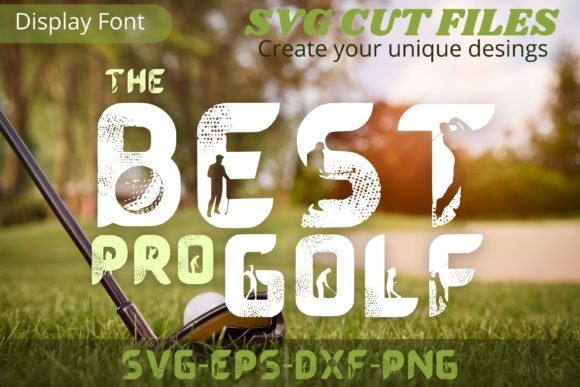
The Perfect Swing: Elevate Your Designs with Best Pro Golf Font
You’ve spent hours crafting the perfect design, and it’s all coming together beautifully. But then, you hit a roadblock – the font just isn’t quite right. It’s a moment we’ve all experienced, but one that can make all the difference between a great design and a truly exceptional one.
Enter Best Pro Golf Font, a cool and sporty decorative font designed to add a touch of sophistication and style to your projects. Whether you’re working on a sports-themed brochure or a fitness-inspired website, this font is the perfect addition. With its limitless possibilities, you’ll be able to create designs that truly stand out from the crowd.
Key Features of “Best Pro Golf Font”
- Font Family: A unique, custom-designed font specifically created for golf-related content, including logos, scorecards, and promotional materials.
- Character Set: Includes a comprehensive set of characters, including uppercase and lowercase letters, numbers, and special characters, making it suitable for a wide range of applications.
- Unique Characteristics: Features a clean, modern design with subtle nuances that evoke the feel of golf courses and equipment, adding an authentic touch to golf-related branding and marketing materials.
Best Pro Golf Font Review
I recently had the chance to work with “Best Pro Golf Font” and I must say, it’s a unique and interesting choice for any golf-themed design project. ✨ One of the things that stands out about this font is its sporty and premium feel, making it perfect for high-end golf brands or luxury golf courses.
Here are some of the things that work well with “Best Pro Golf Font”:
- ✨ Distinctive and modern design that sets it apart from other fonts
- ✨ Great for creating a sense of sophistication and elegance
- ✨ Works well for both digital and print designs
- ⚠️ Limited flexibility – may not be suitable for projects that require a more playful or casual tone
- ⚠️ Not ideal for small text sizes – may become difficult to read
Overall, I think “Best Pro Golf Font” is a great choice for designers who are looking to create a high-end, professional look for their golf-themed projects. While it may not be suitable for every project, it’s definitely worth considering for the right kind of design.
Use the Best Pro Golf Font to create a cohesive and professional look in your designs.
Experiment with different font sizes and styles to create visual hierarchy.
Pair the Best Pro Golf Font with other fonts to create a unique and eye-catching design.
The Best Pro Golf Font is ideal for:
Creating sports-themed designs, such as golf course flyers or tournament programs.
Designing professional business materials, such as brochures or marketing materials.
Creating educational materials, such as course handouts or study guides.
For optimal readability, we recommend using a font size of at least 24 points and a line height of 30-40 points. This will ensure that the font is clear and easy to read from a distance.